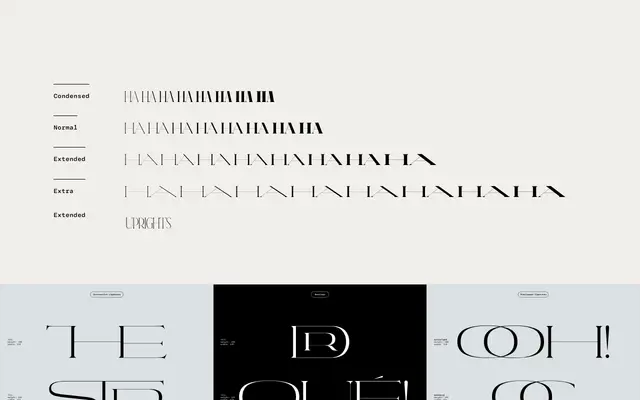
NovaCaps
Rosetta · Tania Chacana
An all-caps display family by Tania Chacana that fuses Roman epigraphic letterforms with Art Deco architectural inscriptions, available across four widths and eight weights with variable font support.
Drawing from Roman museum inscriptions in Rome and Lyon alongside Art Deco architectural lettering in Buenos Aires, the family combines classical proportions with a subversive sensibility suited to fashion and editorial contexts. Four widths from Condensed to Extra Extended each span eight weights from Thin to Extrabold, and the uprights are available as variable fonts. OpenType features include contraction ligatures, nested ligatures in open and closed forms, swash characters and tall alternates for letters such as I, J, Y and T.
An all-caps display family rooted in Roman inscriptional letterforms and Art Deco architectural lettering, making it a display type with classical serif proportions but treated as a distinct caps-only genre.